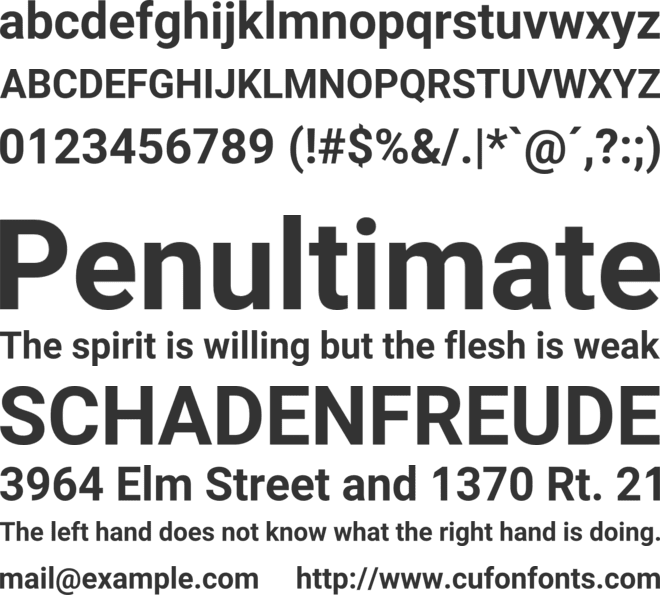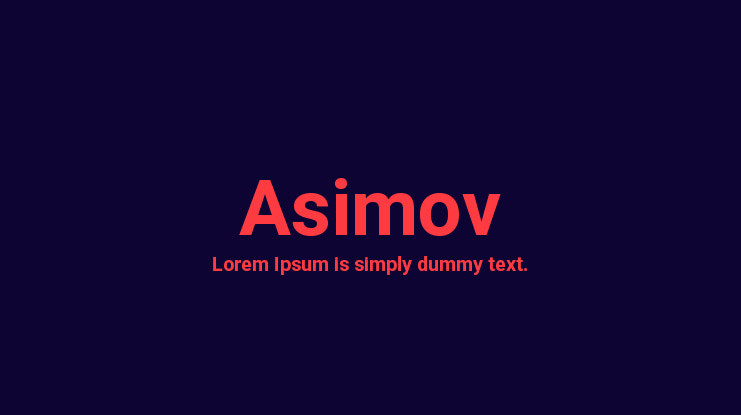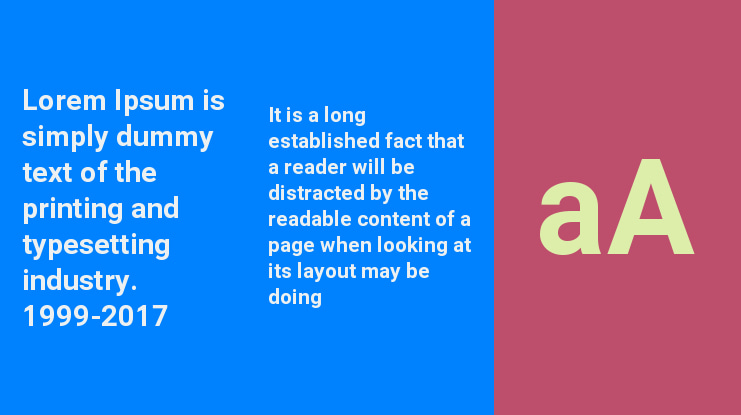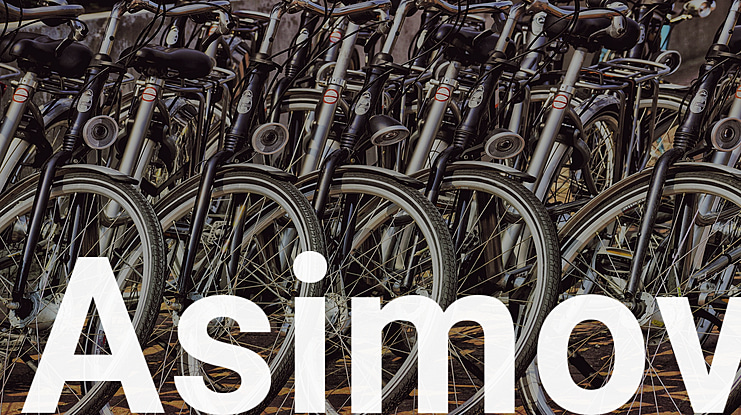
Asimov Font Family
Asimov is a Derivative of the Apache Licensed open source font, Roboto.
We have added a couple characters (Including the new Russian Ruble sign) and tweaked a few more, plus made new widths and display weights, and our own Oblique Italics.